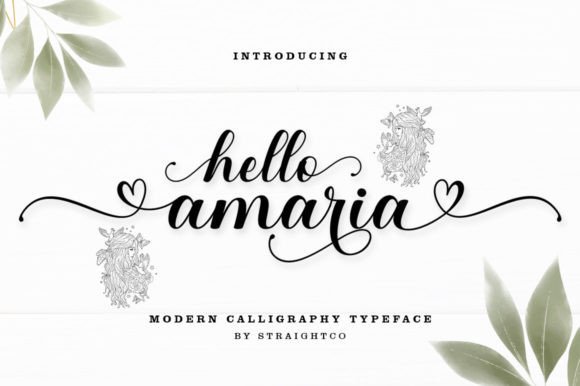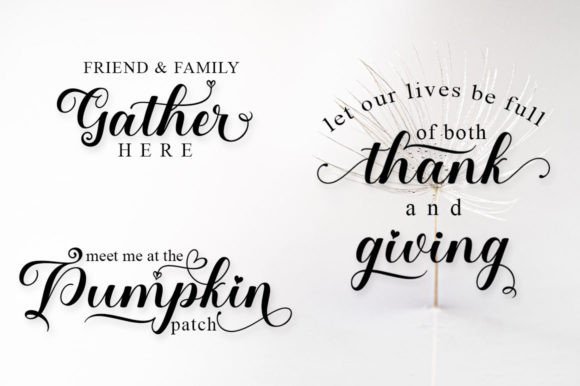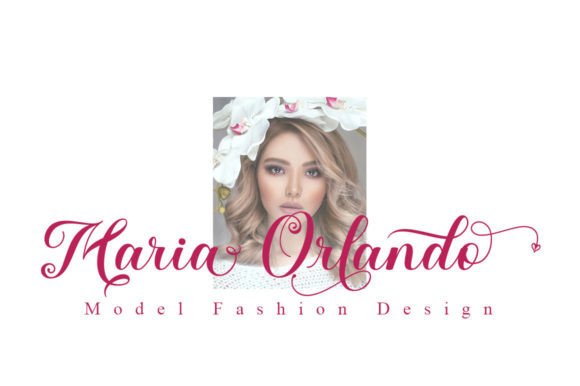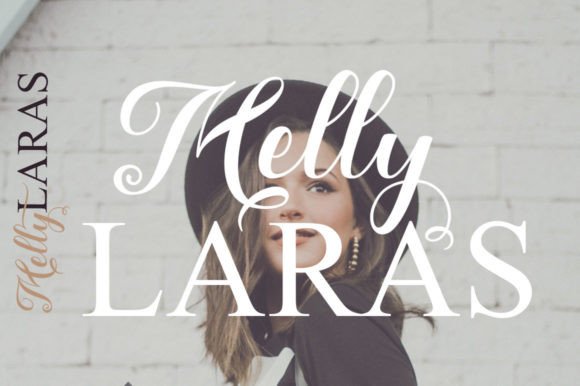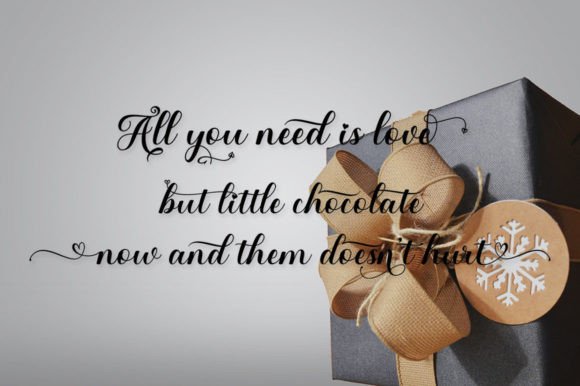
Hello Amaria Font
Hello Amaria is a modern calligraphy design. This font is casual and pretty with a stroke. It can be used for various purposes. such as logos, product packaging, wedding invitations, branding, headlines, signage, labels, signatures, book covers, posters, quotes, and many more.